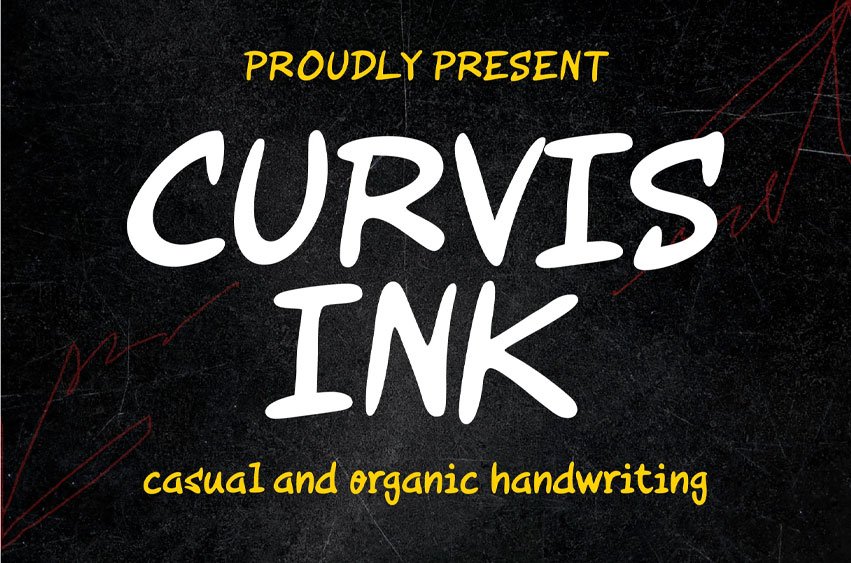
Curvis Ink Font
Curvis Ink Font is a casual and organic handwritten font designed to bring a natural, expressive feel to your designs. With smooth curves and playful strokes, this font is perfect for branding, social media, packaging, and creative projects that need a personal touch.
A perfect choice for designers looking for a relaxed, friendly, and authentic handwritten style.